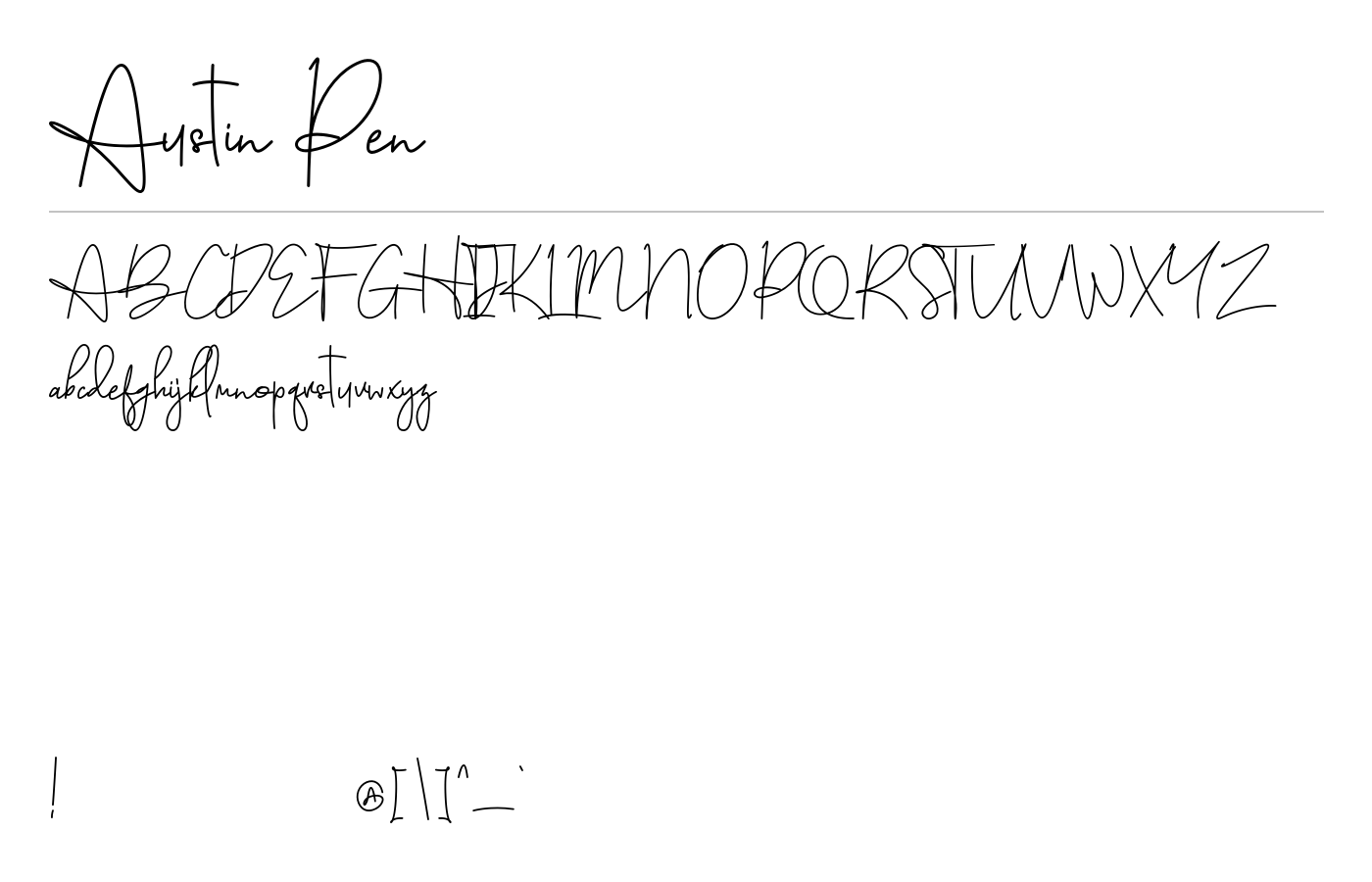
Austin Pen is a delicate, handwritten script font characterized by its thin, flowing lines and tall, airy letterforms. It offers a casual yet elegant feel, making it perfect for personal branding, invitations, and creative projects that seek a stylish, hand-drawn aesthetic. Its light weight and open spacing lend a modern, approachable charm ideal for logos and editorial accents.
Austin Pen Font
About Austin Pen Font
| Font family | Austin Pen Font |
| Designer | Ahmad Khaidir |